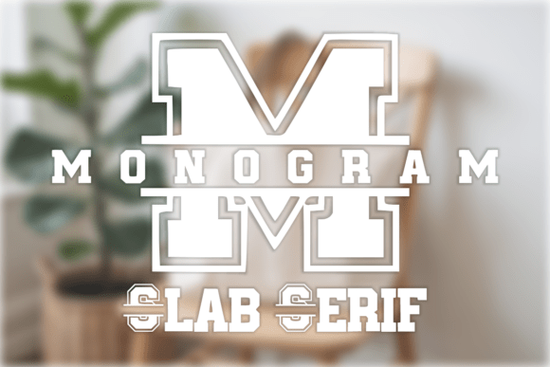
If you're looking for a clean, classic monogram font that works as well on a Cricut-cut doormat as it does on a wedding invitation or small business logo, the Monogram Slab Serif Font is a straightforward choice. It’s not overly ornate or trendy instead, it leans into a timeless collegiate aesthetic with bold, grounded slab serifs and a built-in split-monogram layout. That means the uppercase letters are designed with a centered gap, making it easy to drop in a first initial, last name, or short phrase without manual alignment or kerning tweaks. It’s especially helpful if you’re designing for vinyl cutting, heat transfer, or print-on-demand products where consistency and cut accuracy matter.
What makes this font different from other monogram fonts?
Most monogram fonts either focus on script elegance or minimalist geometry. Monogram Slab Serif sits in the middle: sturdy enough for sports branding or storefront signage, but refined enough for weddings and home decor. The “split” design isn’t just visual it’s functional. Each uppercase letter has a balanced negative space at its center, so when you layer text (like “J” + “Smith” + “C”), the result looks intentional, not patched together. This saves time whether you’re prepping files for a Silhouette Cameo or building mockups in Canva for client approval.
It also includes full uppercase letters, numbers, and basic punctuation all drawn in the same weight and rhythm. That’s useful when adding years (“2025”) to a family sign or sizing a jersey number to match the team monogram. Unlike some decorative fonts that skimp on symbols or offer inconsistent spacing, this one stays cohesive across use cases.
Who uses Monogram Slab Serif and how?
Home decorators and crafters often reach for it when making personalized wood signs, embroidered pillow covers, or custom doormats. Because the letters cut cleanly on machines like Cricut Explore and Silhouette Portrait, there’s less risk of jagged edges or weeding frustration. You can scale it up to 12 inches for a wall plaque or down to half an inch for a charm bracelet and it holds its shape.
Small business owners (especially those selling apparel, gifts, or event goods) appreciate how quickly it helps build recognizable brand elements. A coffee shop might pair it with a simple icon to create a logo that feels both local and established. Wedding stationers use it for save-the-dates where “The Smith & Lee Wedding” needs to look polished but not stiff.
And if you’re curious about how this style fits into broader typography trends, the Monogram Slab Serif Font reflects a steady demand for “quiet luxury” fonts understated, confident, and versatile rather than flashy.
Just keep in mind: because it’s a decorative monogram font, it’s best used for headlines, logos, and short phrases not long paragraphs or body text. Pair it with a neutral sans serif (like Montserrat or Inter) if you need supporting text in the same project.
- ✅ You need a bold, readable monogram font with built-in center spacing not just separate initials.
- ✅ Your projects include cutting (Cricut/Silhouette), printing (POD), or digital mockups (Canva/Procreate).
- ✅ You prefer fonts with full character sets including numbers and common symbols not just A–Z.
- ❌ You don’t need multilingual support (no accented characters or extended Latin glyphs).
If those match your needs, Monogram Slab Serif Font is ready to simplify your next few design rounds no extra plugins, no guesswork, just clean, cut-ready letters that hold up across materials and scales.